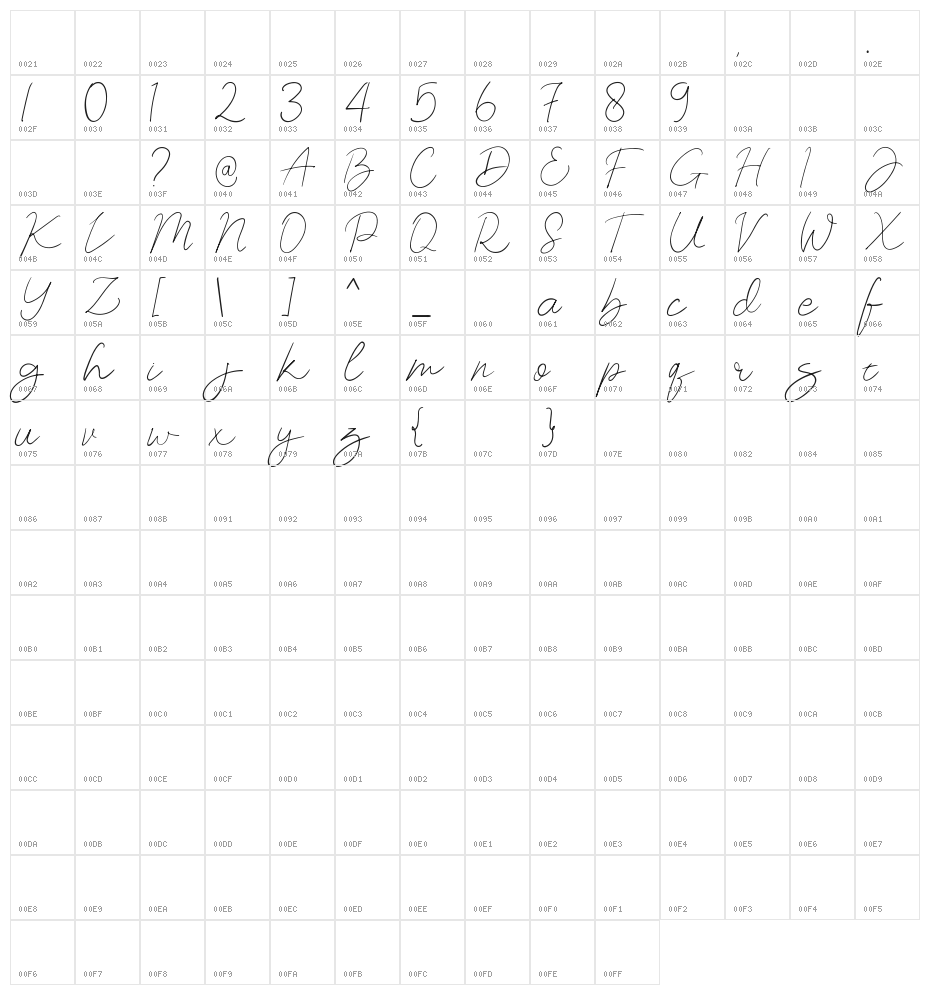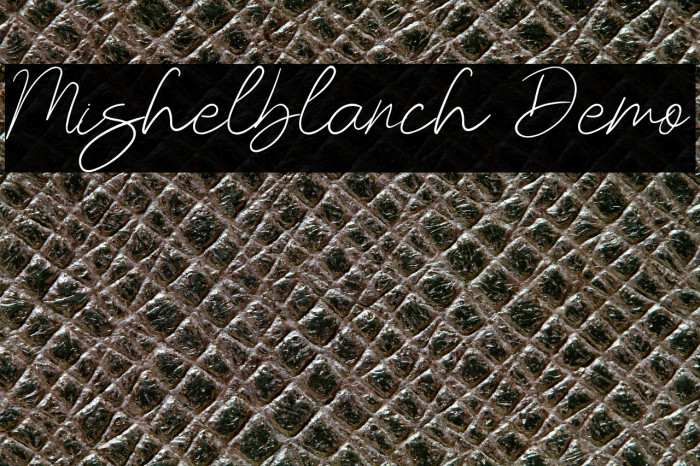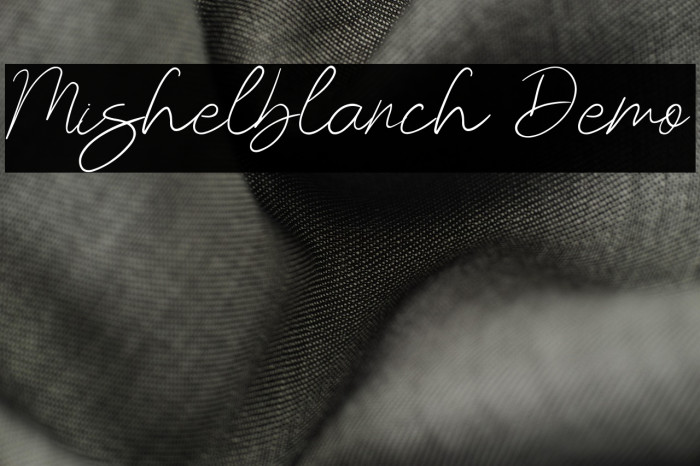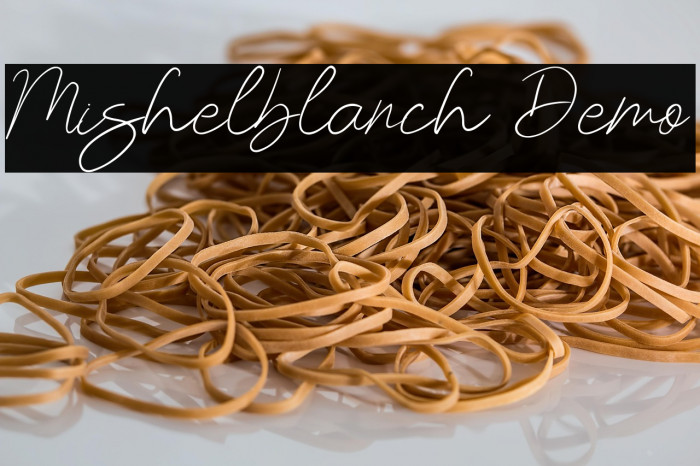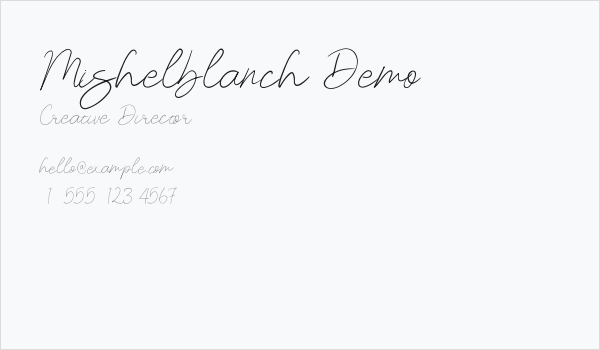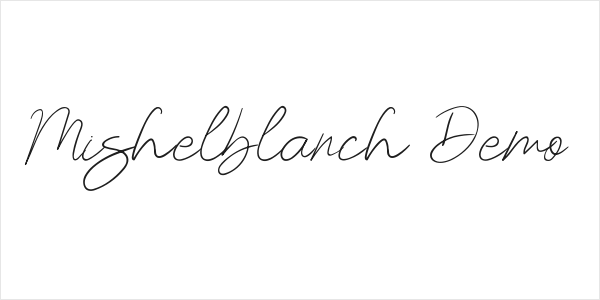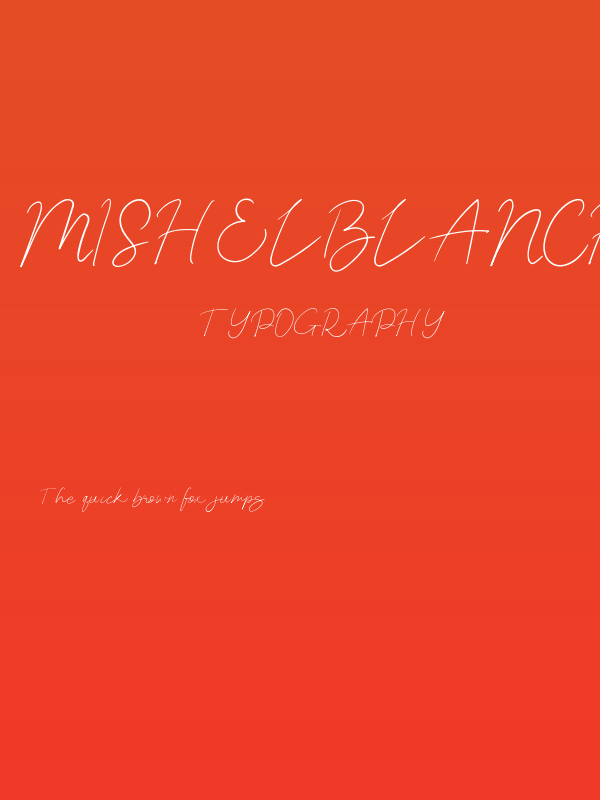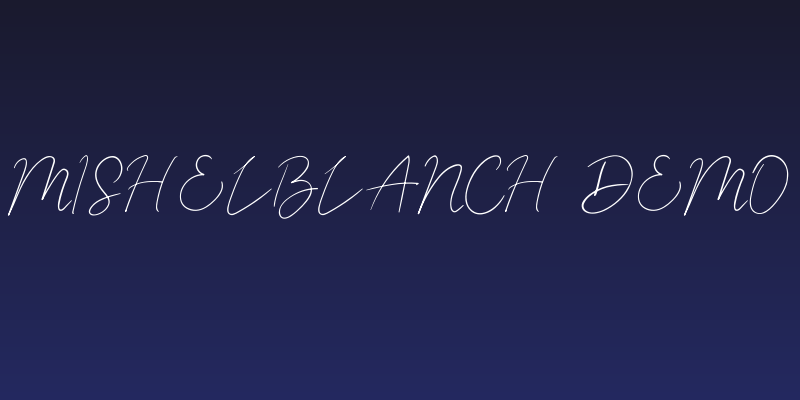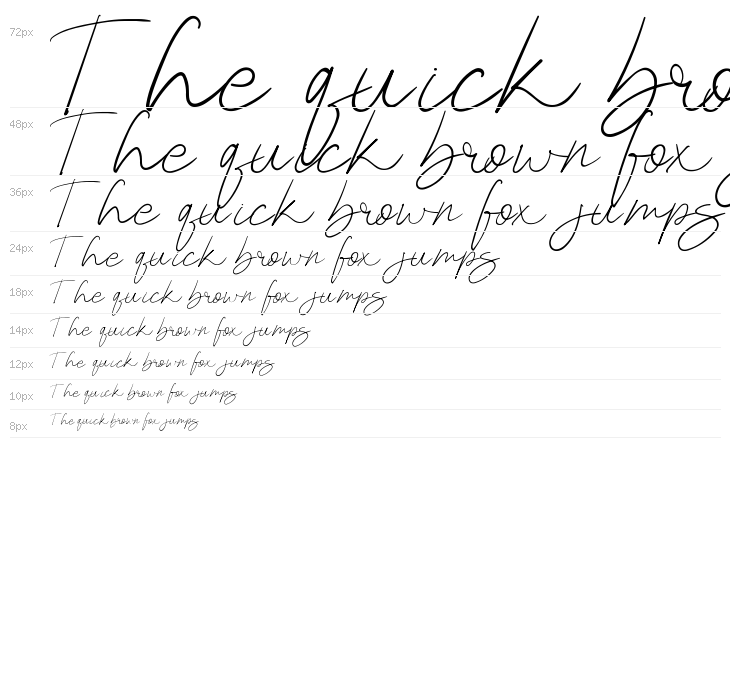
Mishelblanch Demo Font
Mishelblanch Demo Description
A flowing, elegant script font with a handwritten style, featuring smooth curves and a natural, personal touch.
| Use Case | Logos, Headlines |
| Proposed Projects | Invitations, greeting cards, personal branding. |